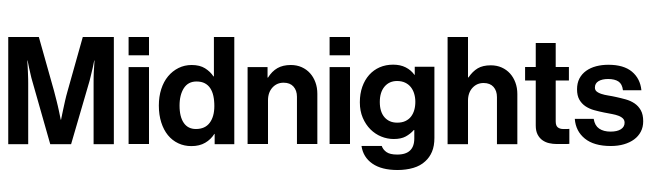
Midnights (Taylor Swift) Font
Fonts in UseTaylor Swift's tenth studio album, Midnights, was released on October 21, 2022, to much fanfare and critical acclaim. The album features a blend of Swift's signature pop sound with some new creative elements, showcasing her growth as an artist and cementing her status as a music icon.
The cover artwork for the album features the typeface called Neue Haas Grotesk, which is also currently utilized on Taylor Swift's official website. Neue Haas Grotesk is a widely used sans-serif typeface that was originally designed in 1957 by Max Miedinger and has since undergone various redesigns and rebrandings, most famously as Helvetica.